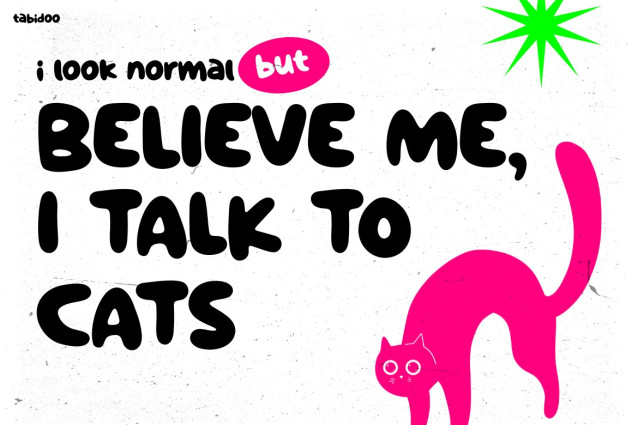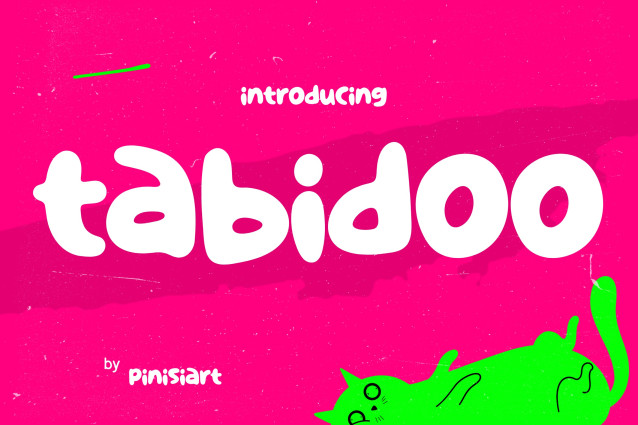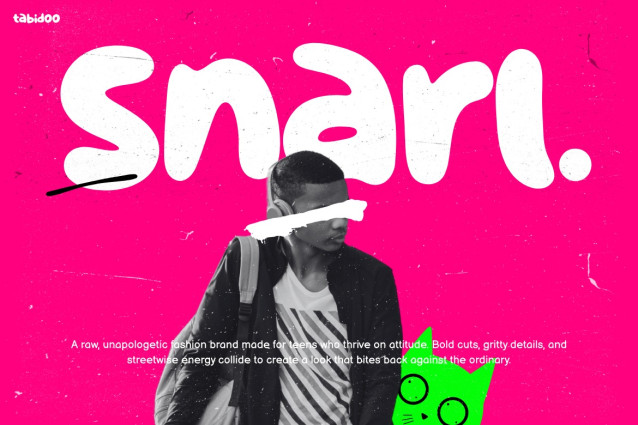
Tabidoo Display Font
Tabidoo Display Font is a unique typeface with bold, bubbly curves and a cheerful handwritten style. It is instantly eye-catching and fun. The playful strokes and rounded shapes radiate positivity, giving every design a fresh and youthful vibe. Unlike standard fonts, Tabidoo feels imaginative and adventurous. Moreover, the quirky letterforms and dynamic thickness ensure that this font stands out. Its modern yet approachable aesthetic makes it perfect for capturing both energy and friendliness.
The design of this font was inspired by doodles, children’s handwriting, and street-style graphics. Therefore, it carries a spontaneous look that feels authentic and warm. Each letter looks slightly imperfect in the best way, so your words appear full of life. With this combination, Tabidoo can express joy, humor, and creativity all at once.